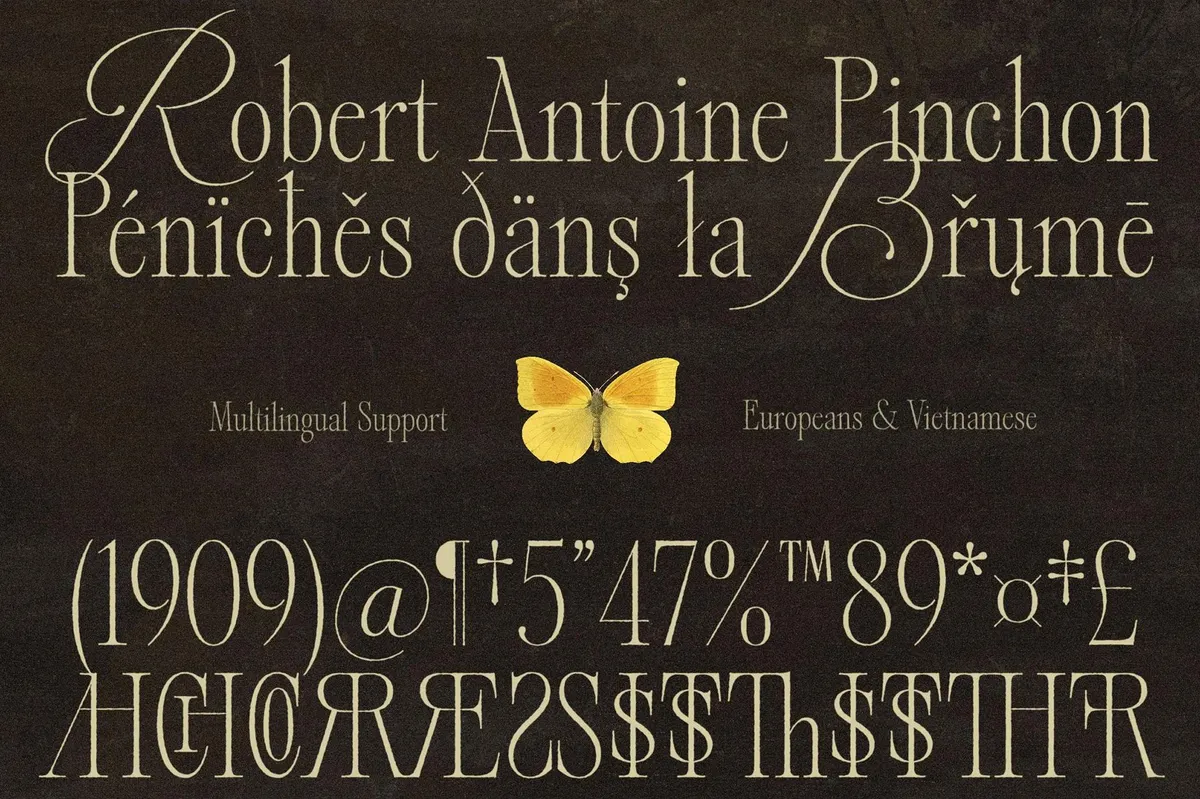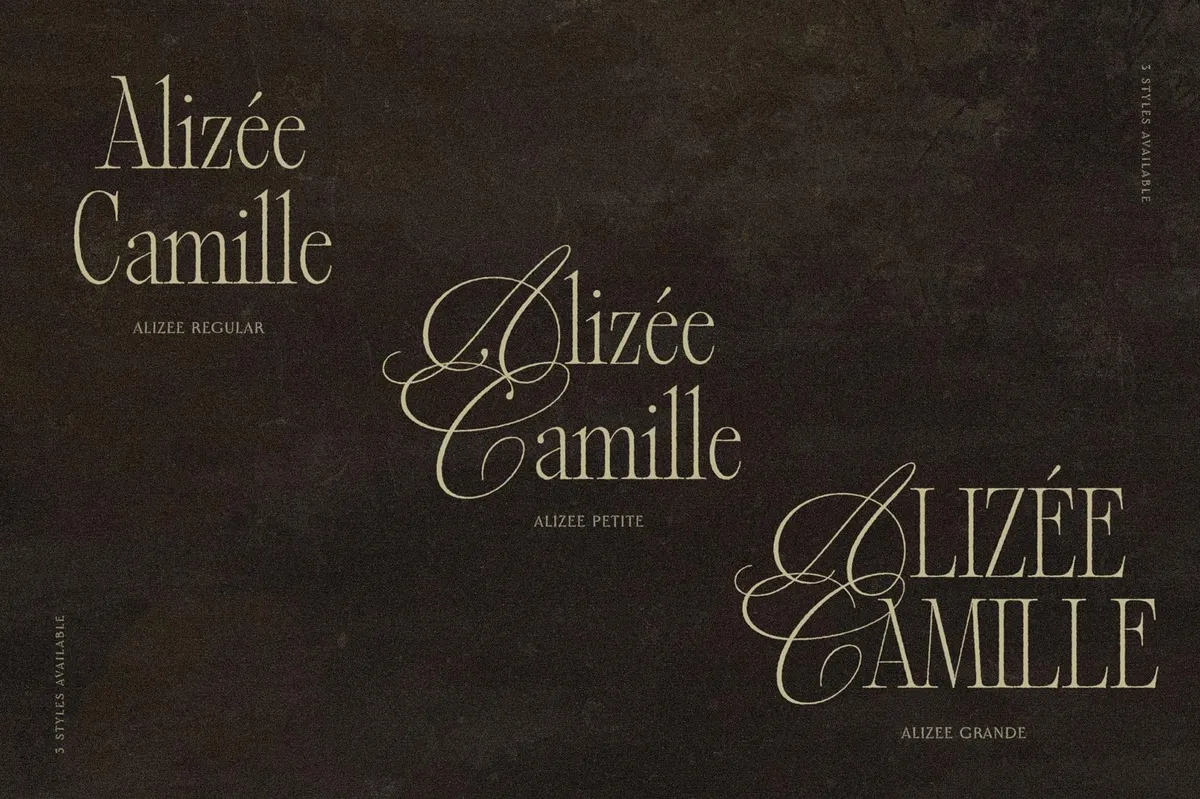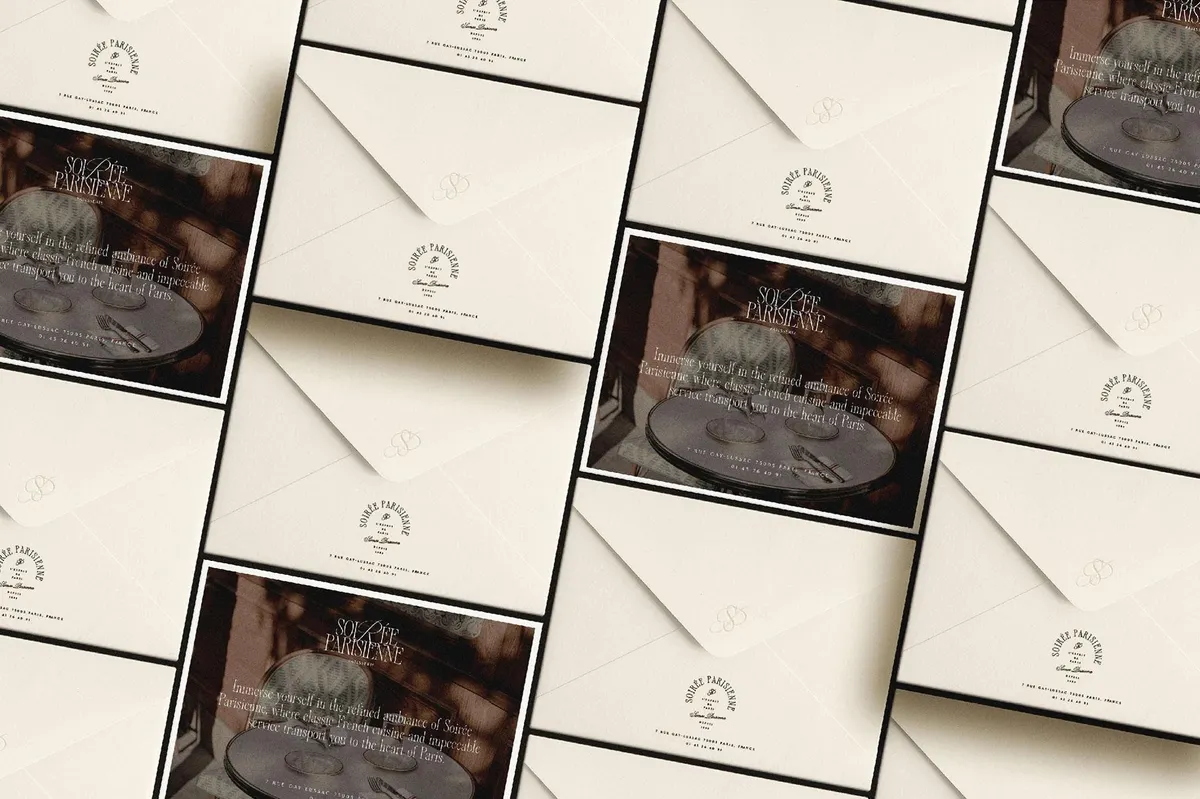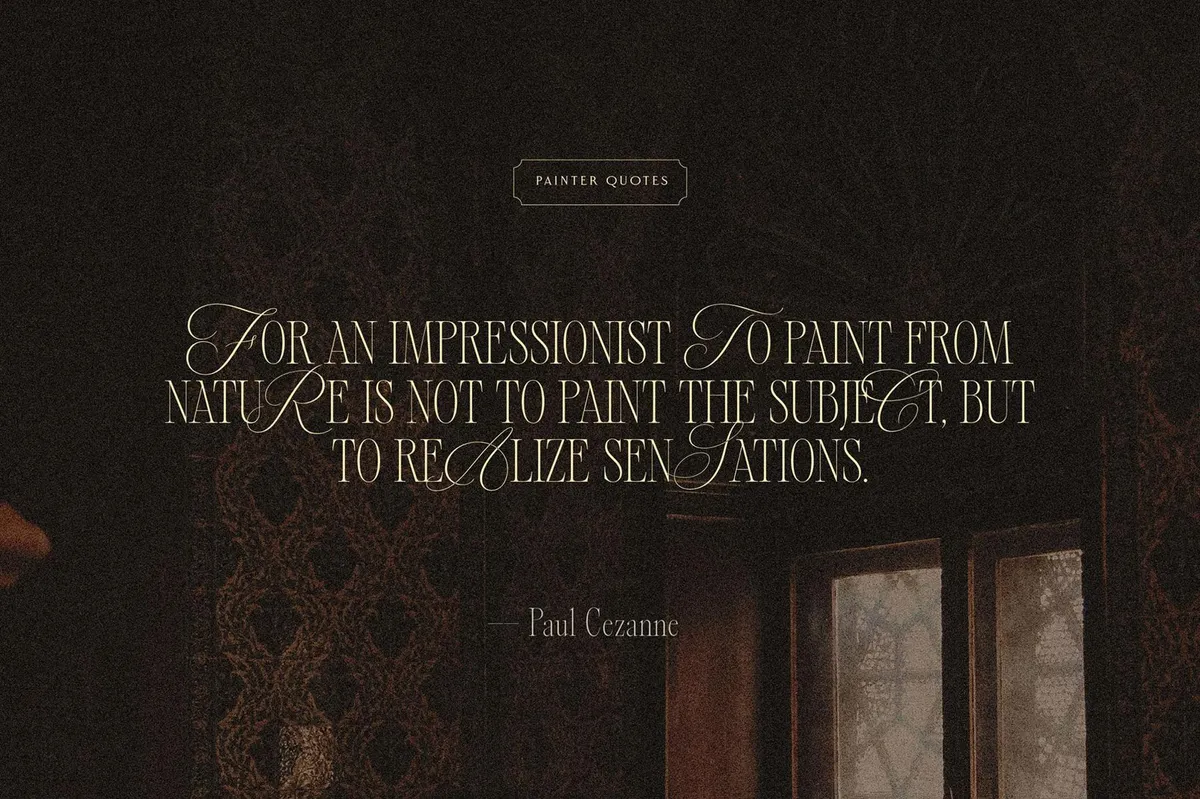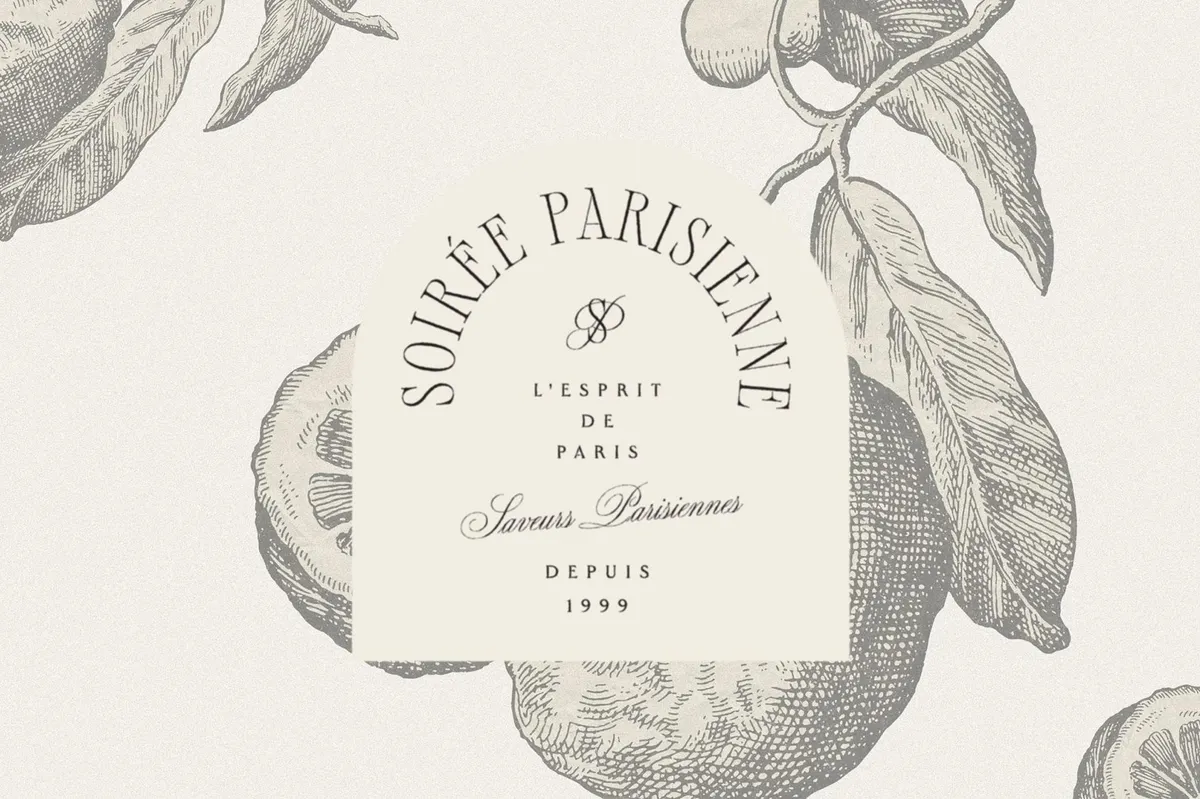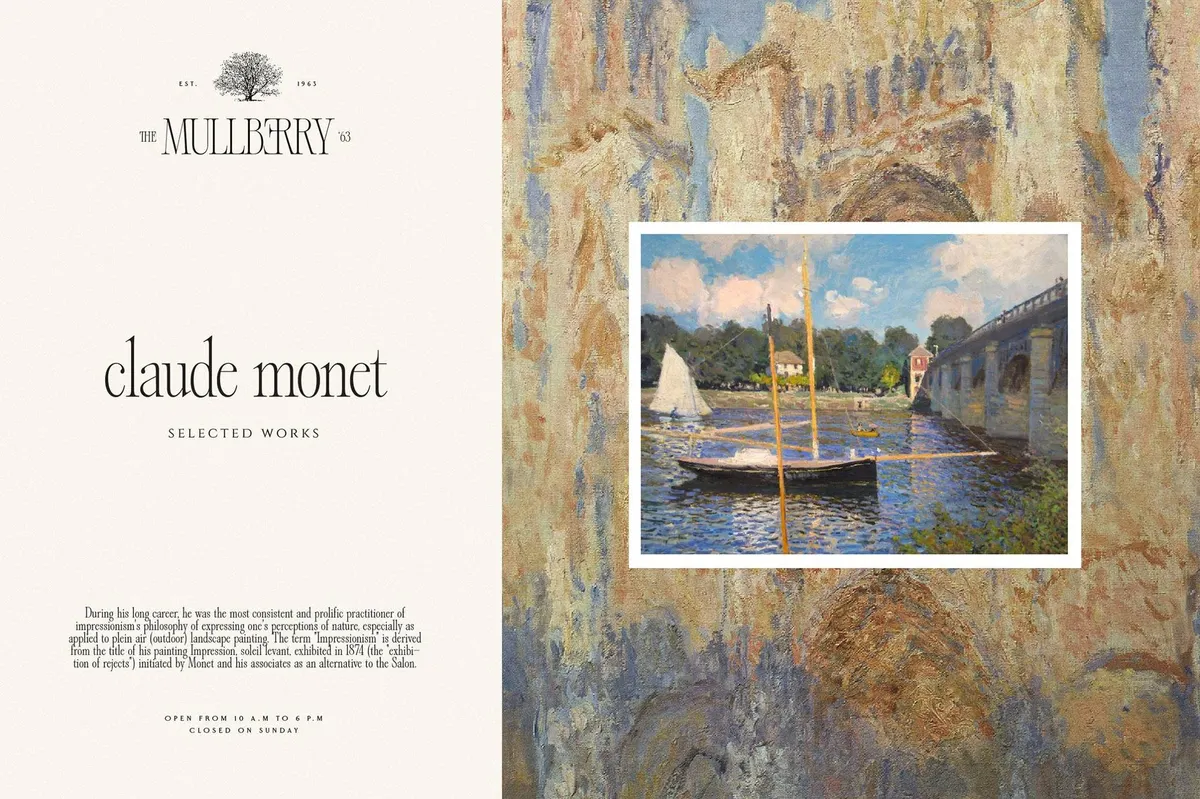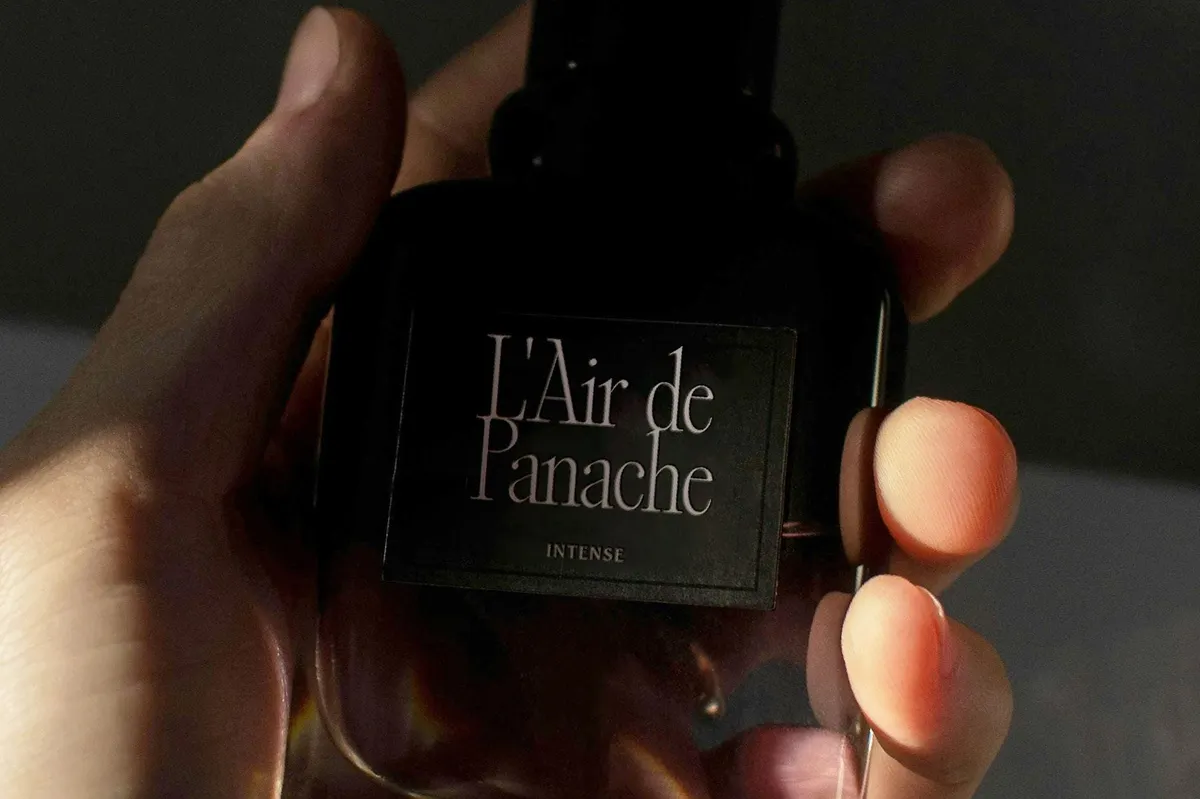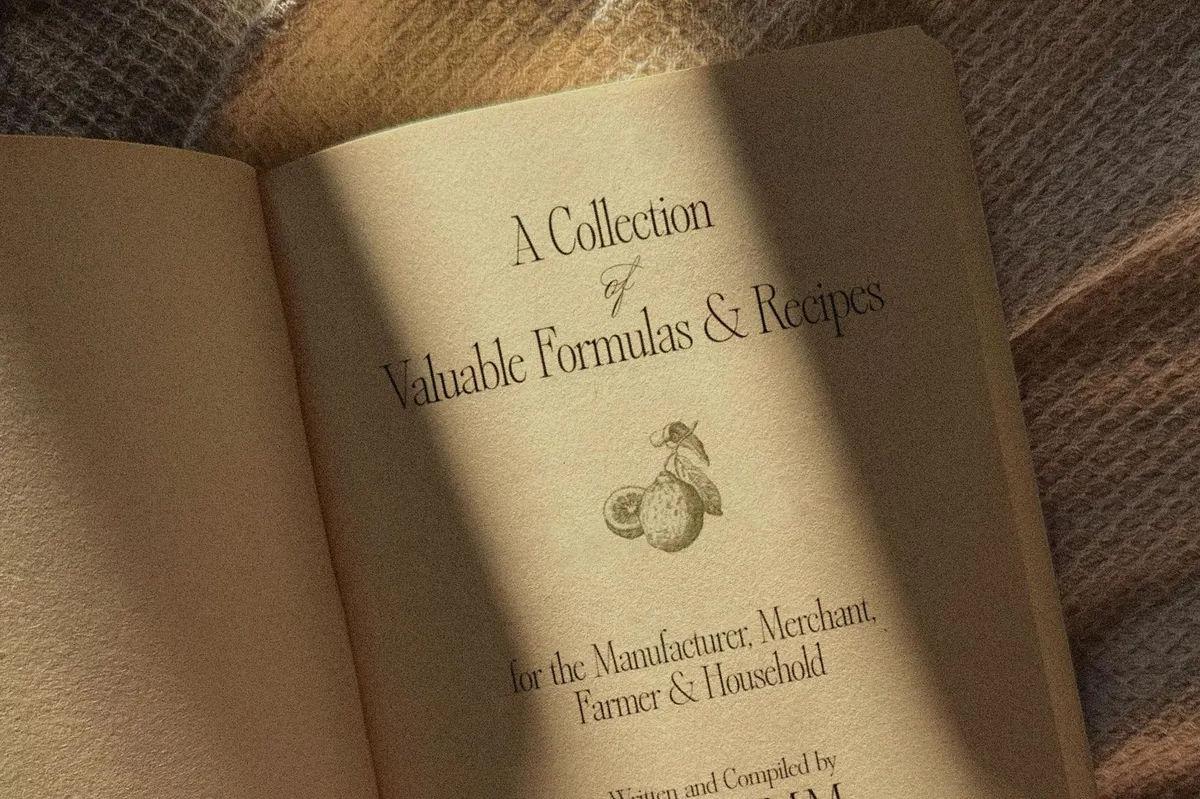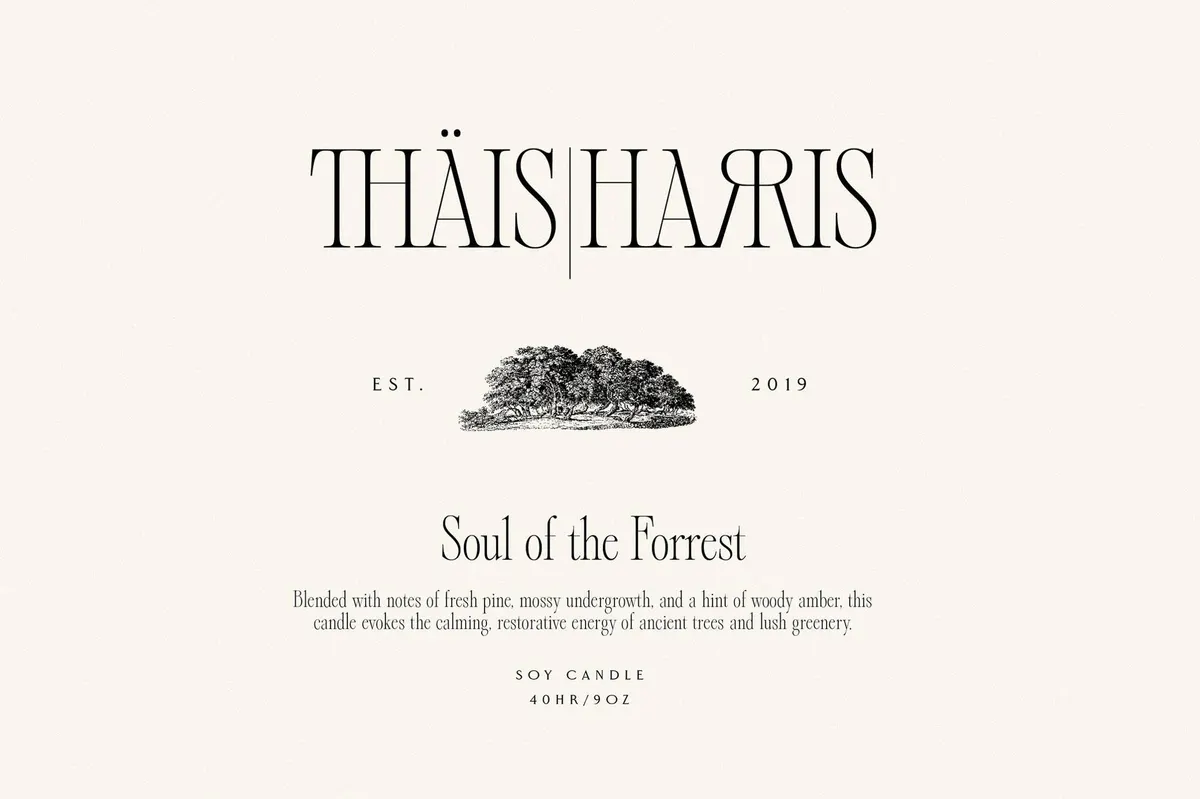
Alizee — Classy Hybrid Serif
Alizee is a high-contrast, elegant serif typeface with strong Didone influences, commonly used in editorial design, fashion branding, and luxury packaging. It's bold in presence yet graceful in detail: every glyph, including international characters and ligatures, is of timeless elegance.
The font subtly attenuates the French neoclassical vibe, frequently chosen for high-end publications, museum exhibitions, perfumes, and couture labels. It's got tall, refined letterforms with sharp vertical stress and ultra-fine horizontal strokes. The dramatic contrast between thick and thin lines and stylized uppercase alternates add a historical or romantic drama flourish.